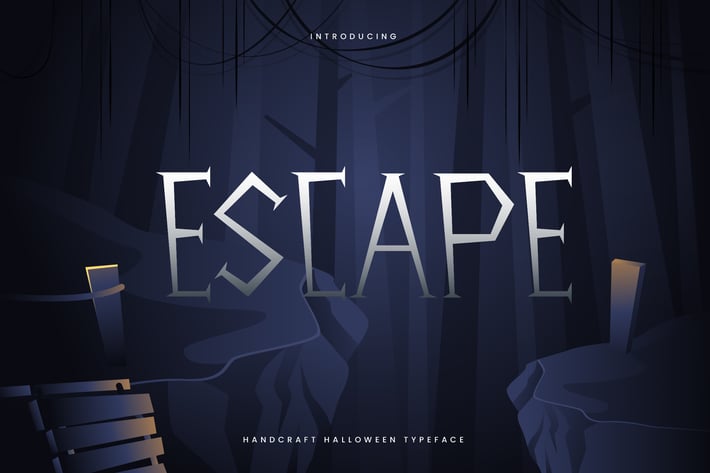
Escape - Hand Drawn Decorative Halloween Typeface
Are you looking for a bold and fun font for children birthday party and halloween event? We can help! Try to download our Escape font. The font is suitable to use for birthday, comic, cartoon, games, halloween, and other children related occasion :)